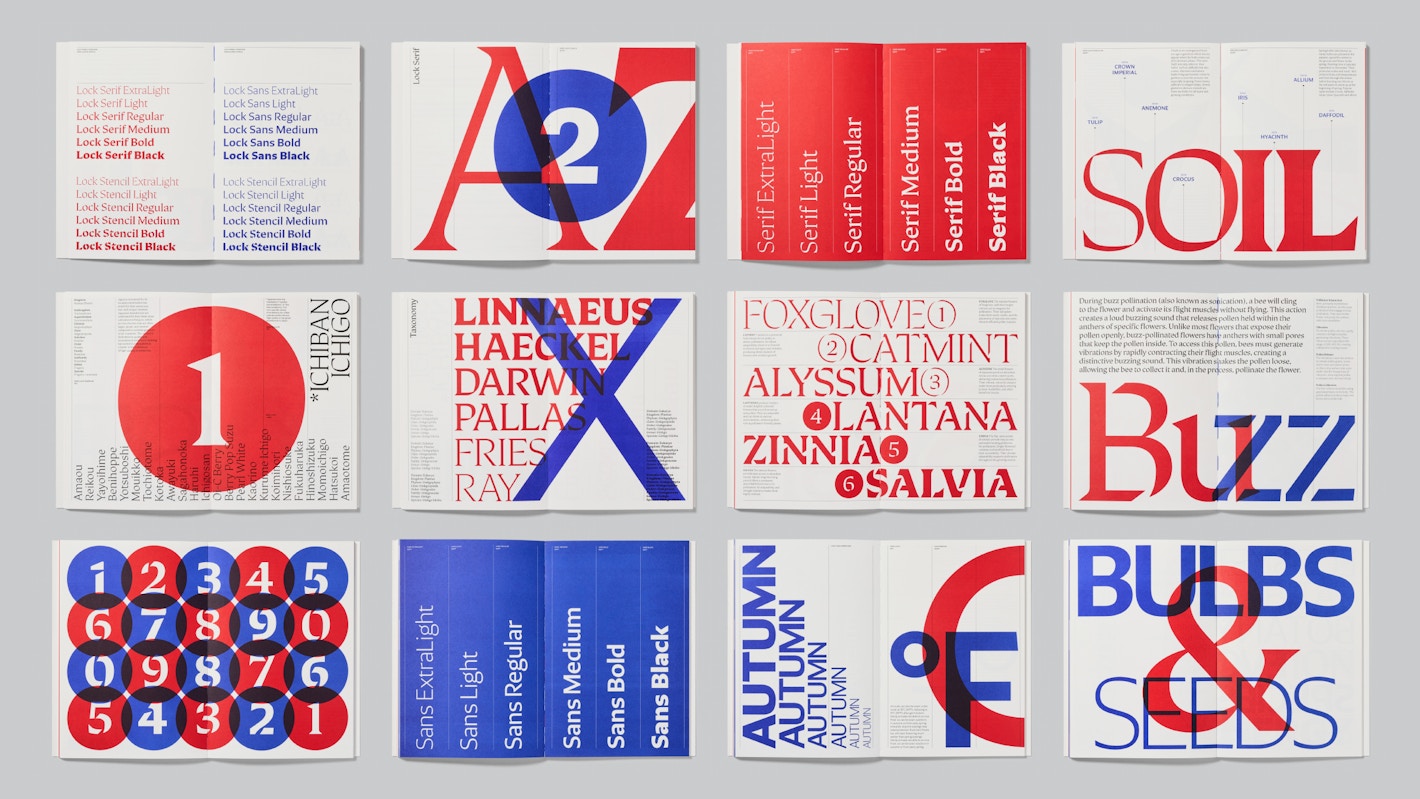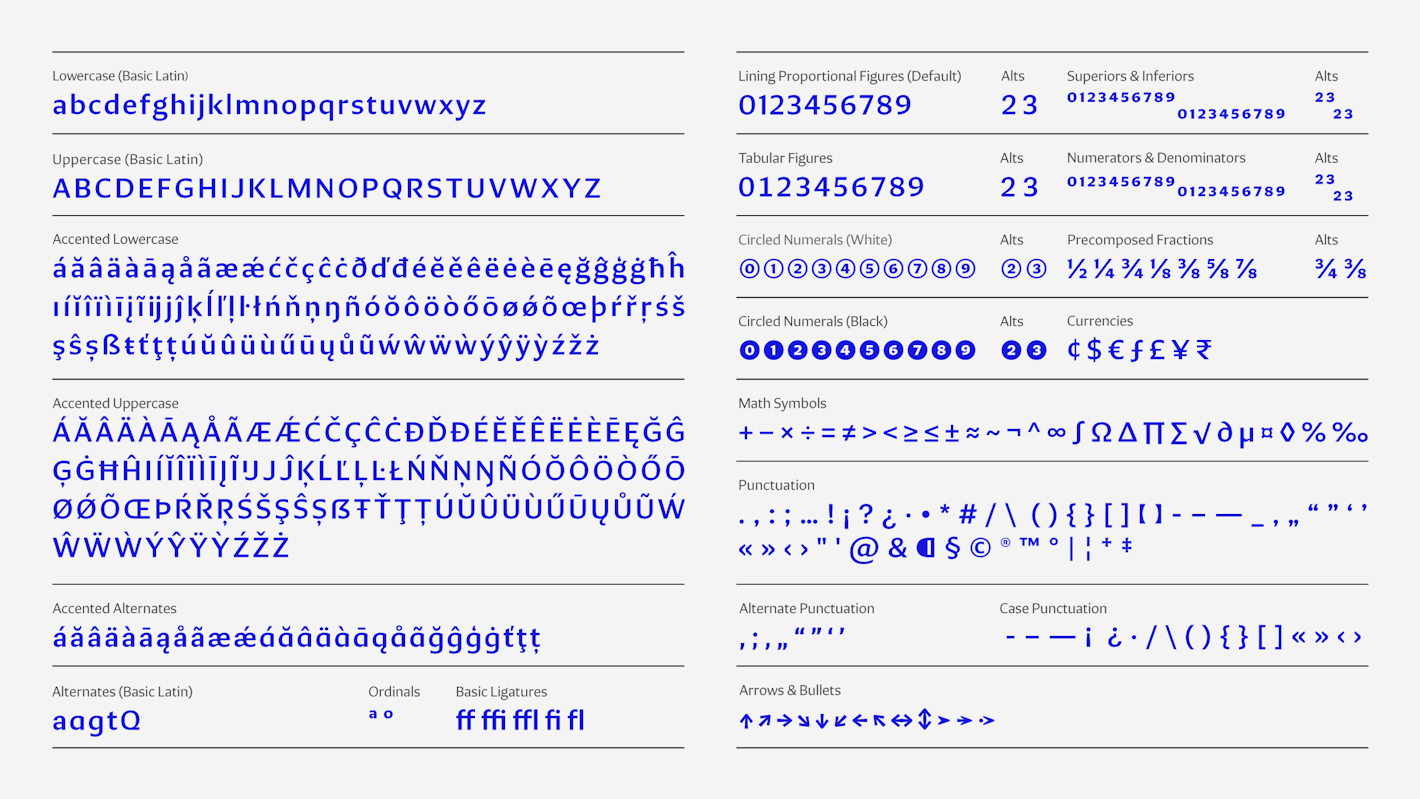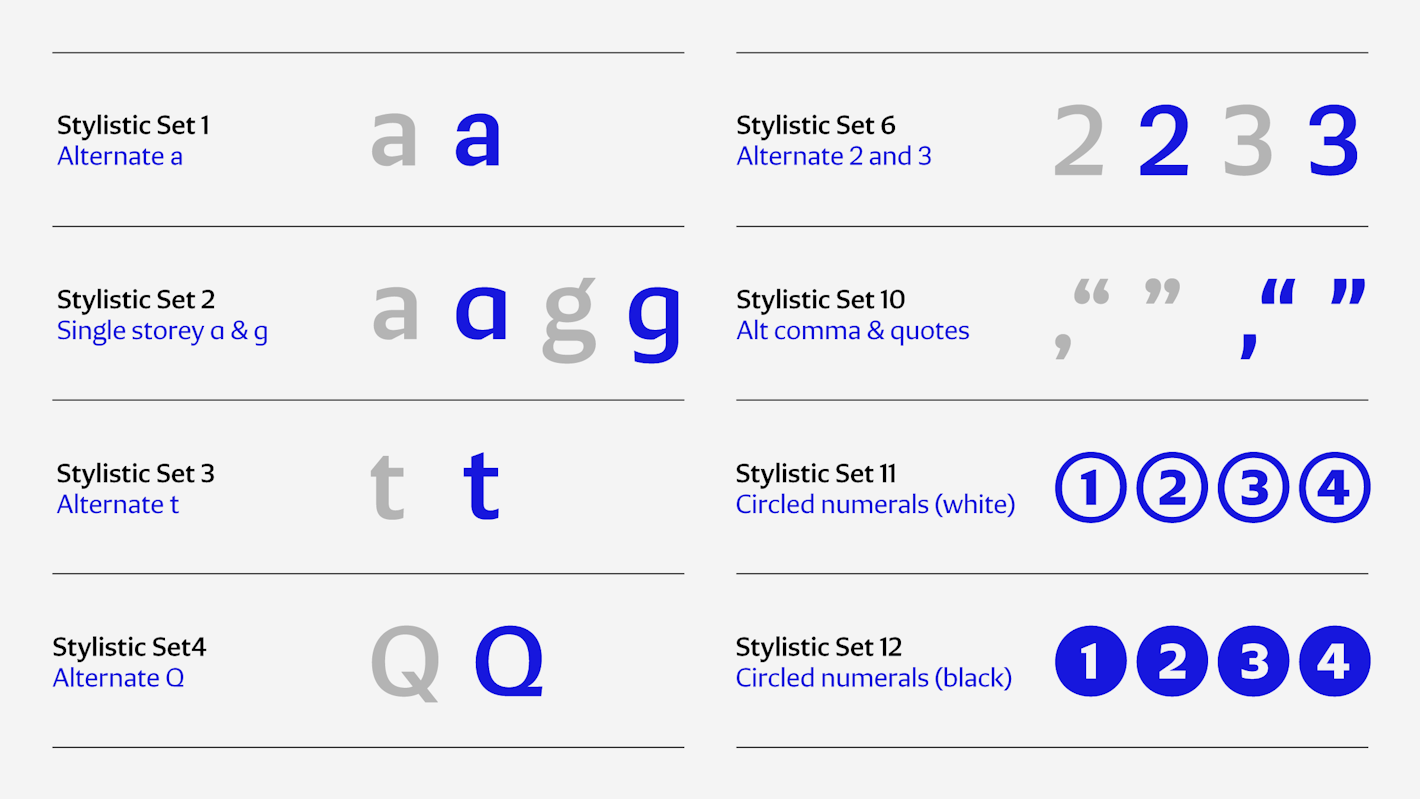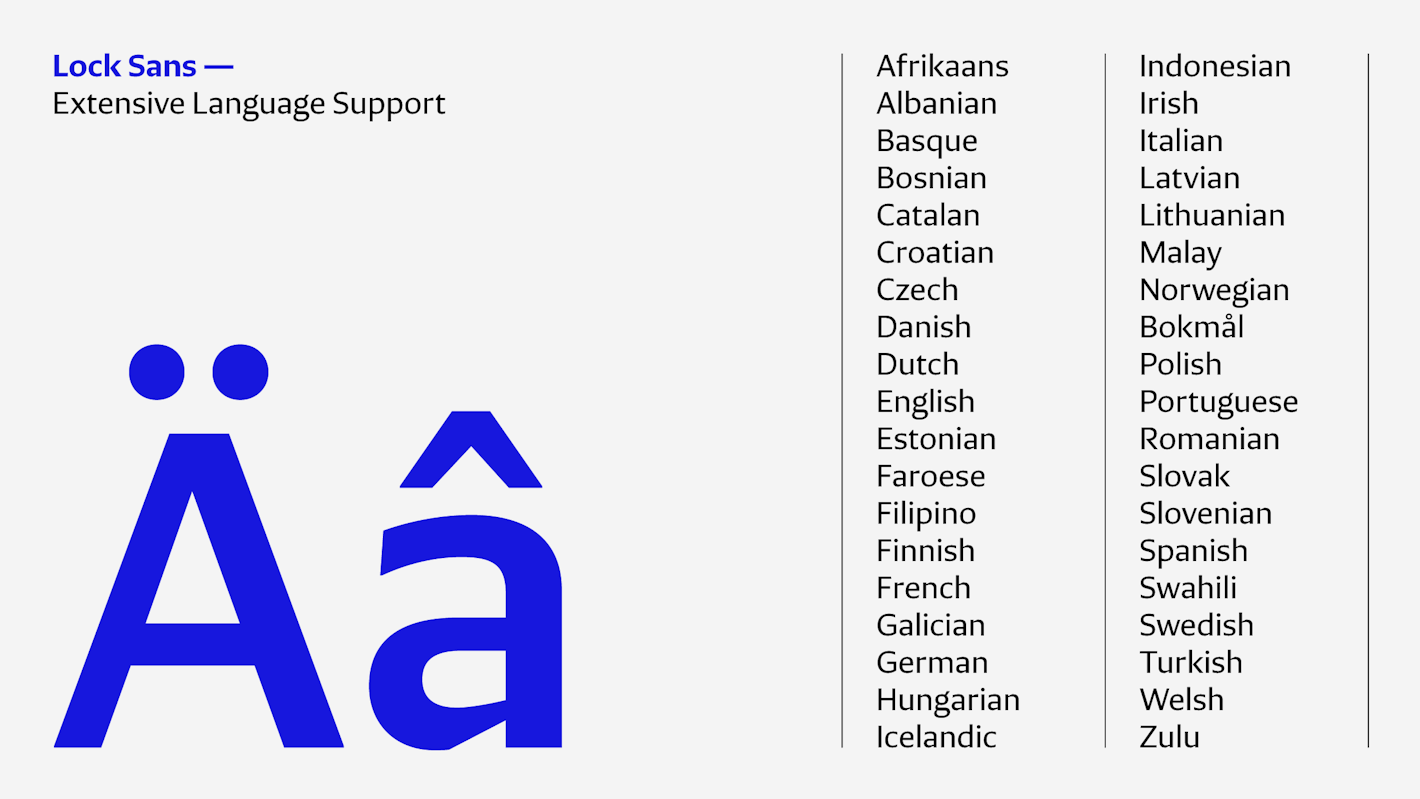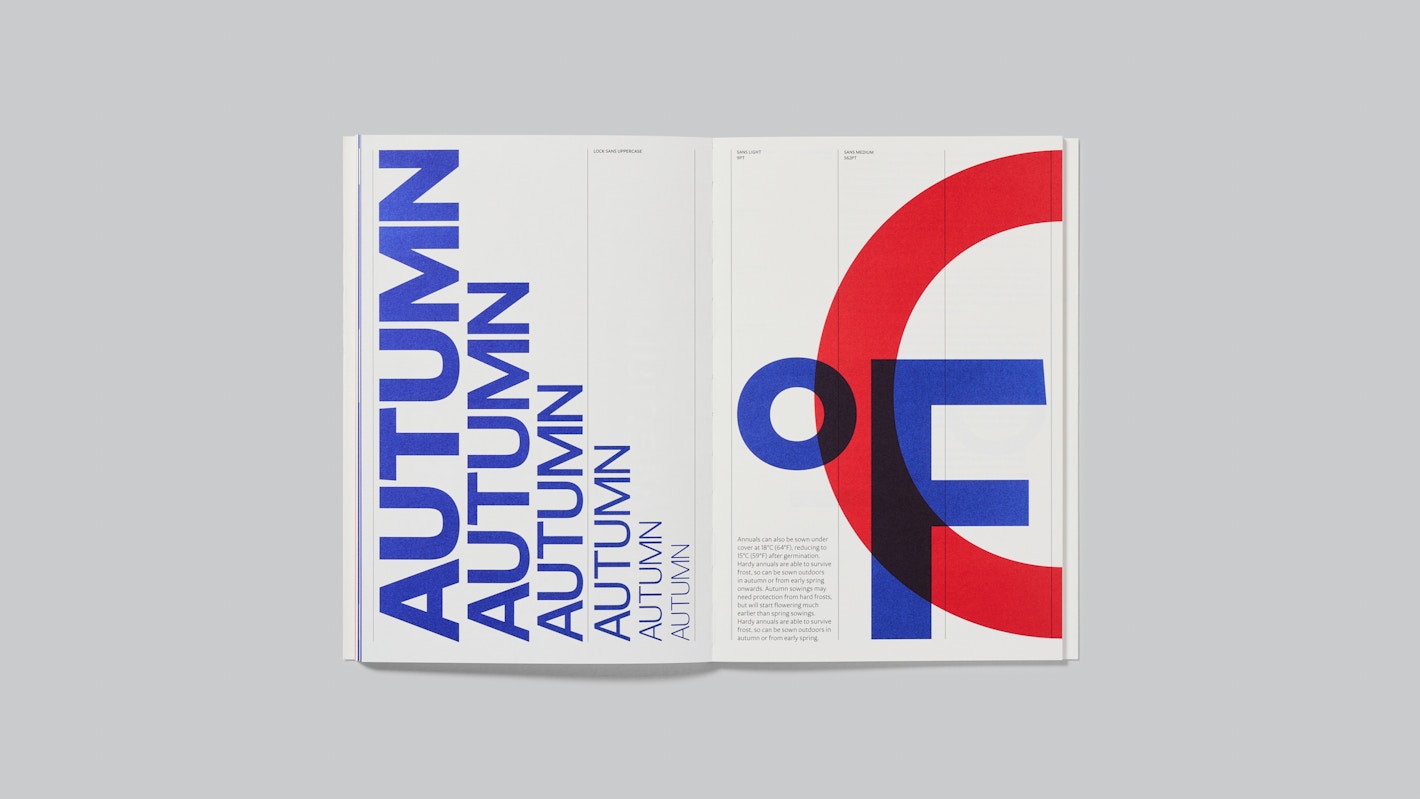
Lock Sans is a versatile humanist sans-serif that merges calligraphic influences with a minimalist, modern aesthetic. Its design is rooted in calligraphy but reimagined for contemporary uses, offering a clean and adaptable look.
Lock Sans is available in six weights – ranging from ExtraLight to Black – and features carefully crafted calligraphic details that enhance legibility across different text sizes. It includes glyph alternates for key characters like ‘a,’ ‘g,’ ’t,’ and ‘Q,’ along with arrows, circled numbers, as well as alternate commas and quotes. Lock Sans can be seamlessly interchanged with Lock Sans Stencil without causing text to reflow, ensuring design flexibility. The character set covers most Latin-based languages.
Its blunt, understated shapes make Lock Sans suitable for modern design environments, while its calligraphic roots provide a subtle warmth. The combination of simplicity and personality makes it a perfect choice for corporate, editorial, and branding projects.
Lock Sans is part of the larger Lock family – a collection designed by Mark Bloom and Diana Ovezea, which explores the balance between broad-nib calligraphy and industrial design. Lock is available in Sans and Serif variants, each with its playful stencil companion.